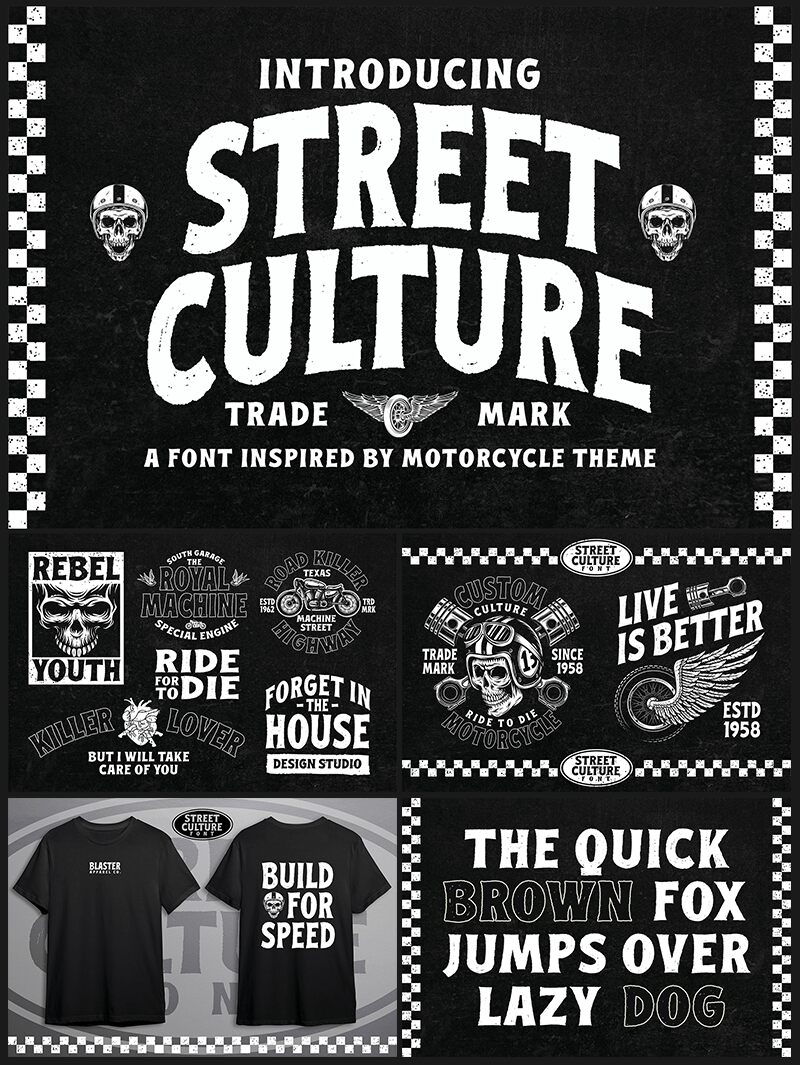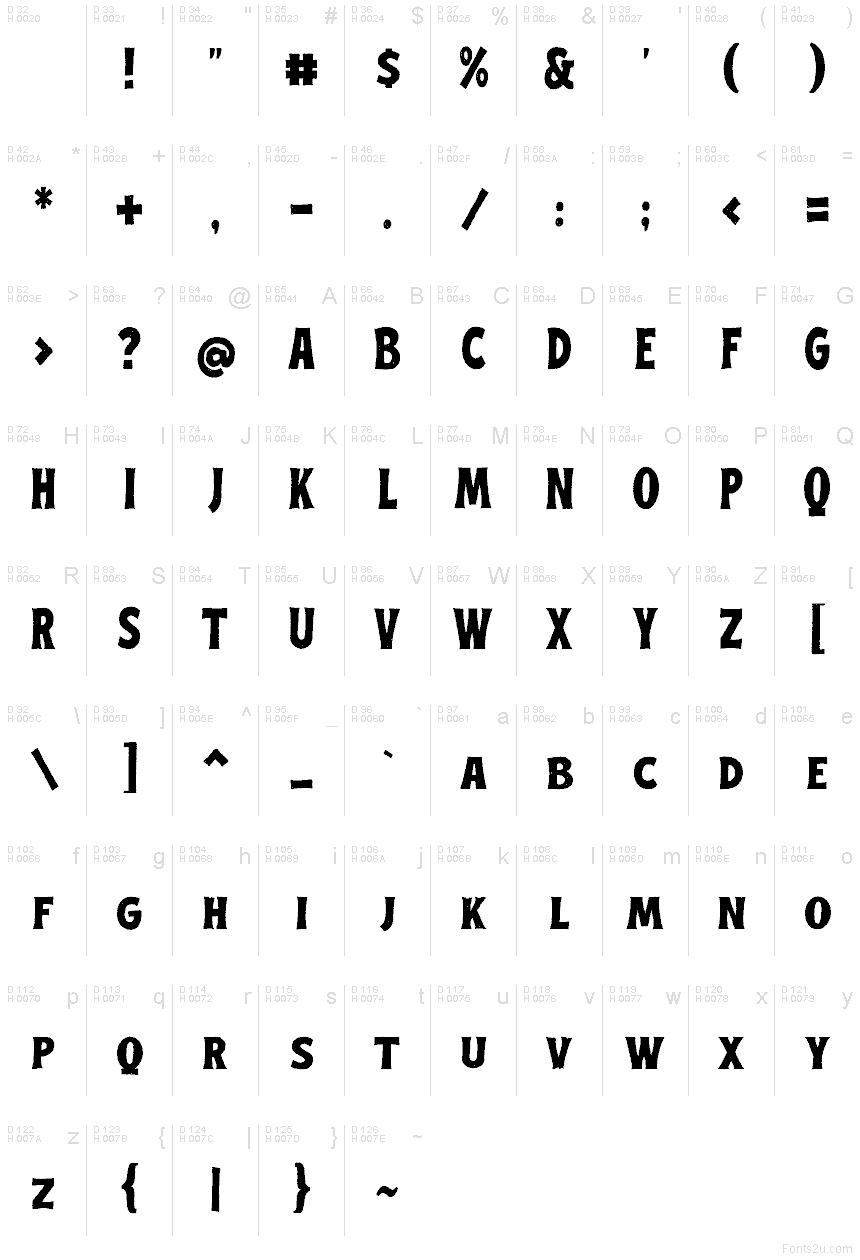
Street Culture Regular
Street Culture font by Blankids is a free eroded display font. Thick, battered letterforms carry a scuffed, inky texture that feels screen-printed and sun-worn, like posters peeled from a brick wall. The weight hits hard, while the irregular edges add just enough shake to keep headlines alive and loud.
Using Street Culture, gritty projects come together fast—gig posters, album covers, streetwear marks, skate zines, graffiti-inspired headers, and festival branding all benefit from its raw punch. This free font works best big; let the texture breathe. For balance, pair it with a clean sans-serif for body copy, and keep tracking tight to maintain that street-level urgency.
Street Culture by Blankids Studio